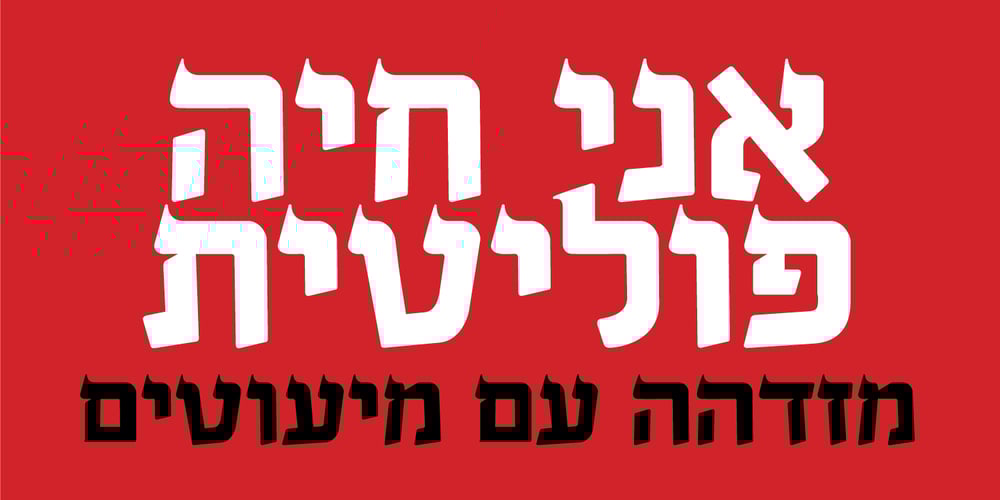
Hadoar MF
Hadoar MF font
Hadoar MF Font Family was designed by Zvika Rosenberg and published by Masterfont. Hadoar MF contains 1 styles and family package options. Inspired by hand written letters on a street sign in Tel Aviv